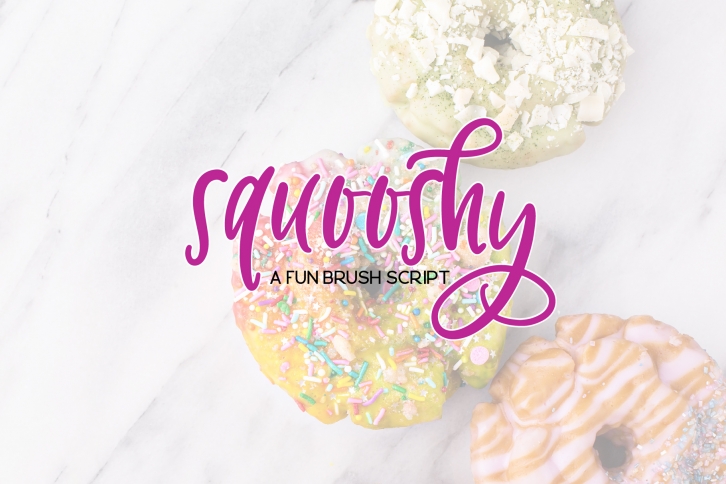
Squooshy is a beautiful font that was designed by On The Spot Studio. It's a great choice for designers and creatives who need such a font. It was released on October 11, 2018 and the file size is 9.92 MB. Squooshy may give a more youthful, expressive and casual look to your project. It is a very beautiful, refined, elegant, and high-quality font.